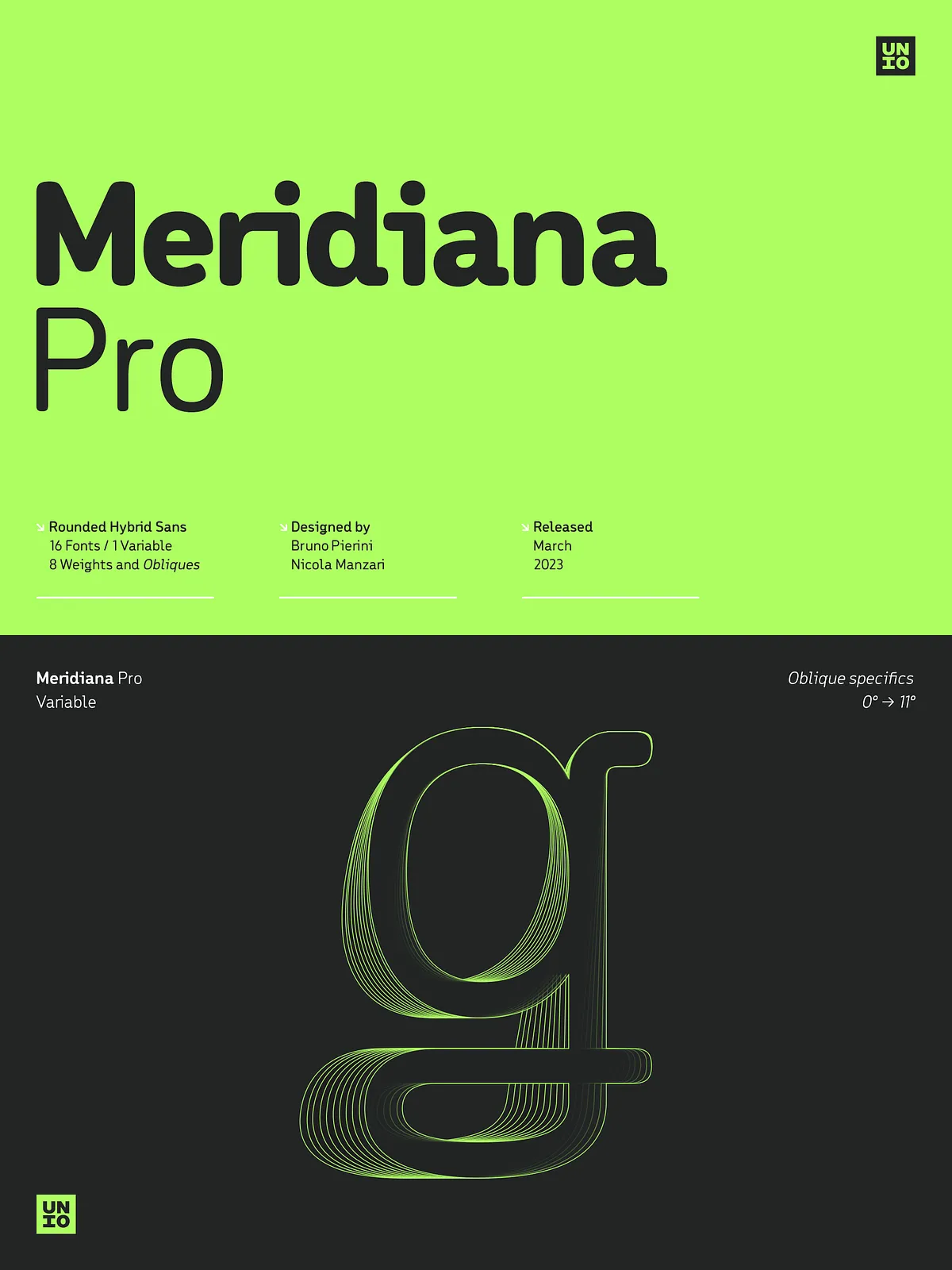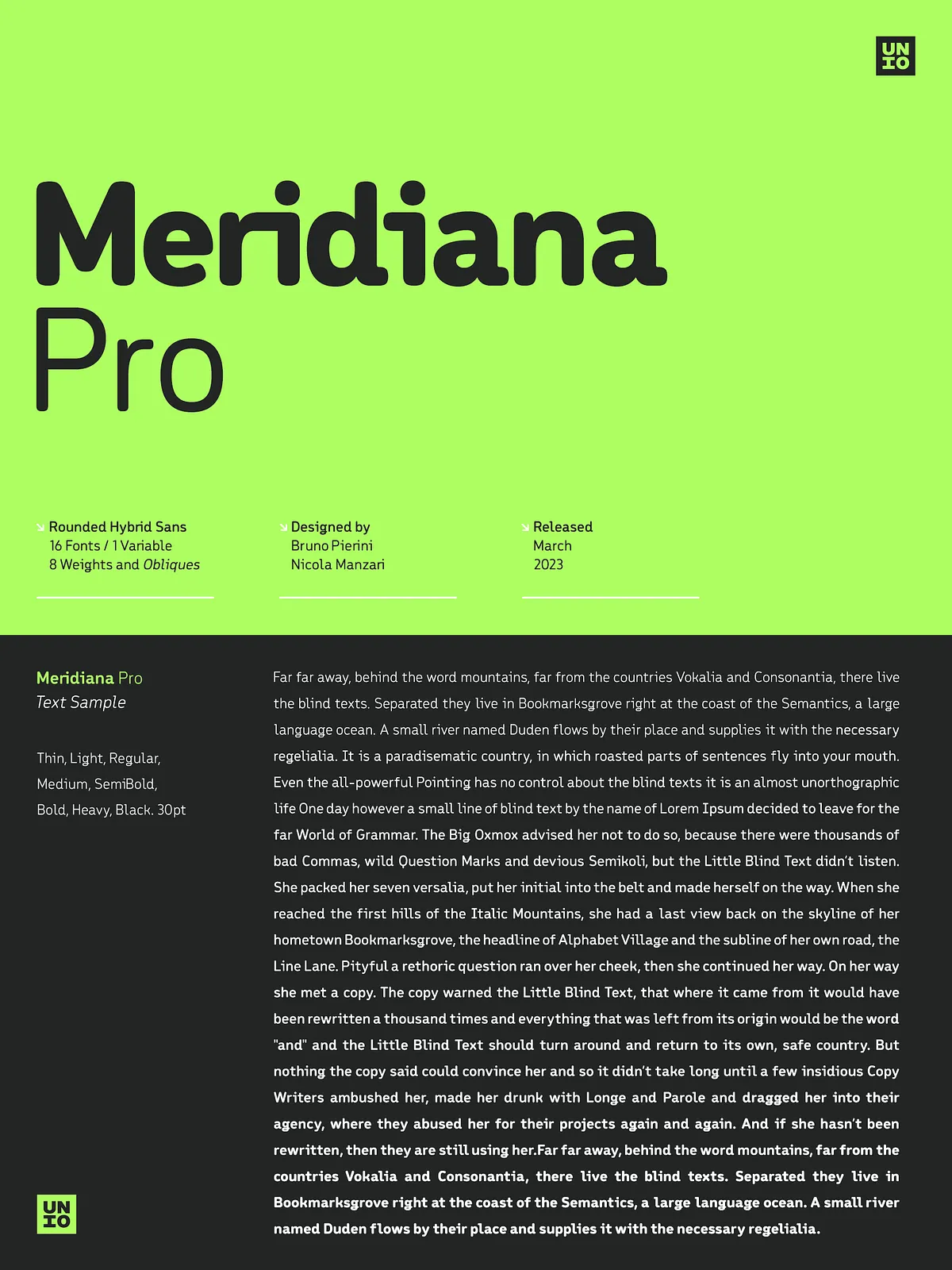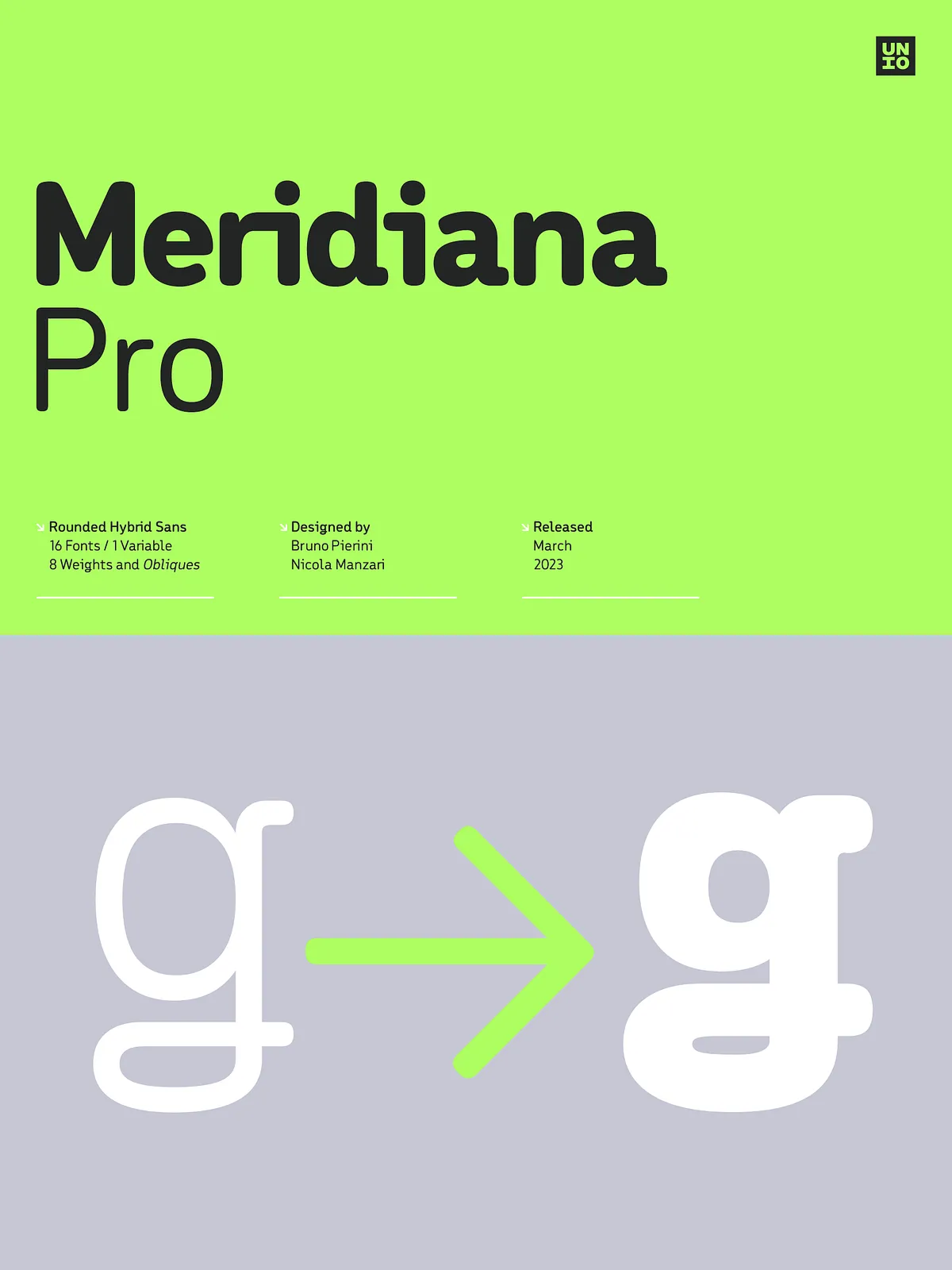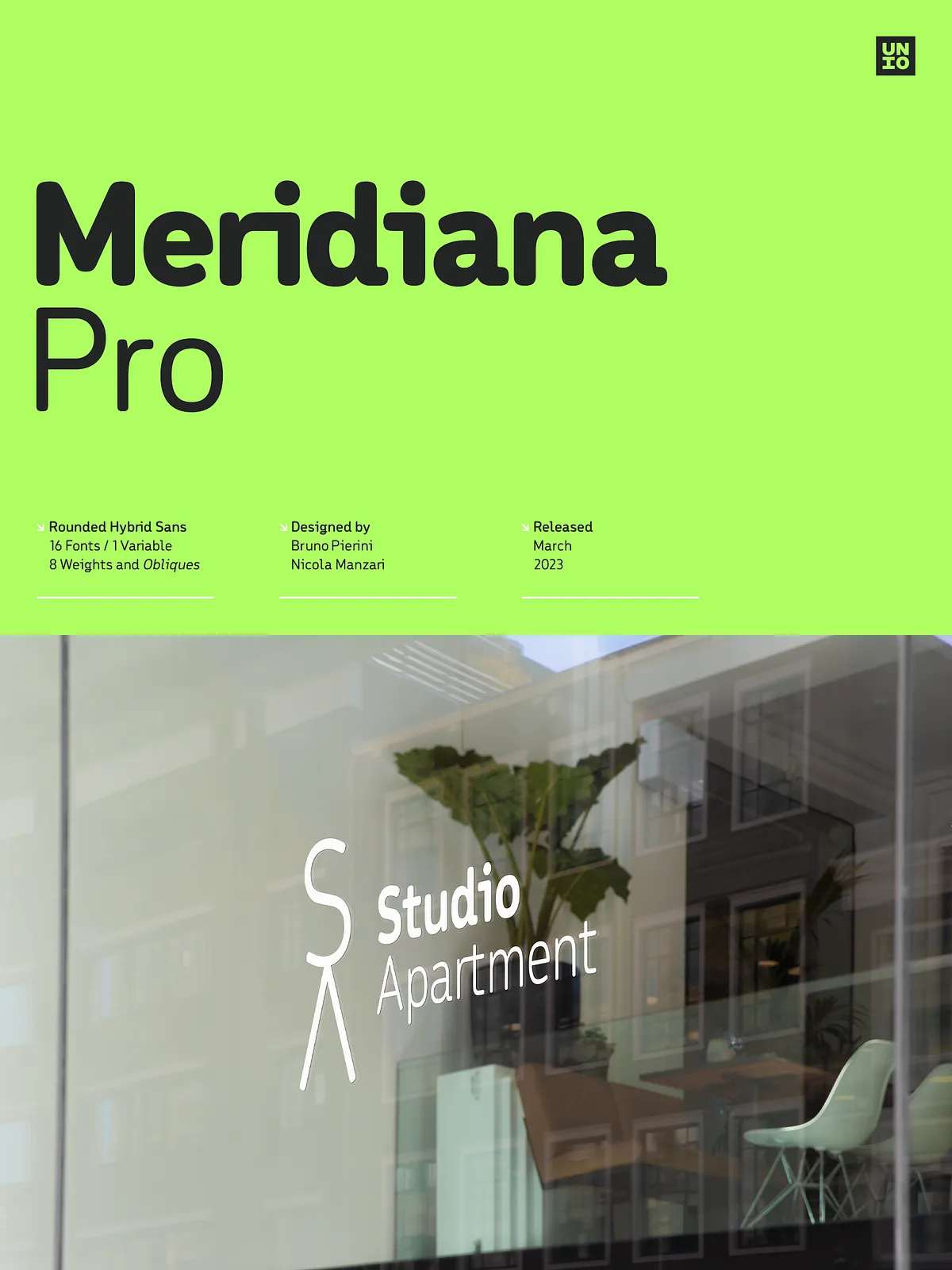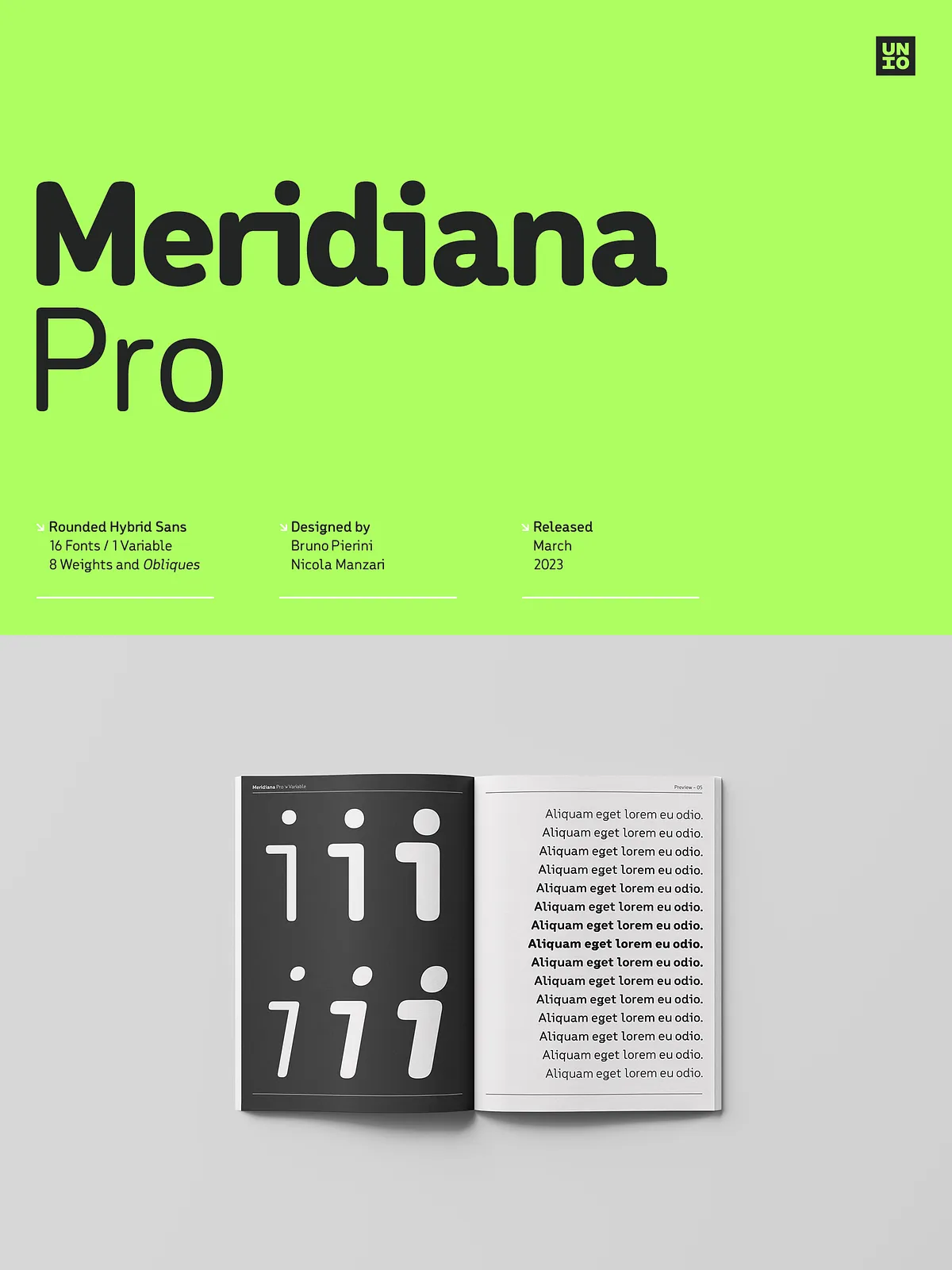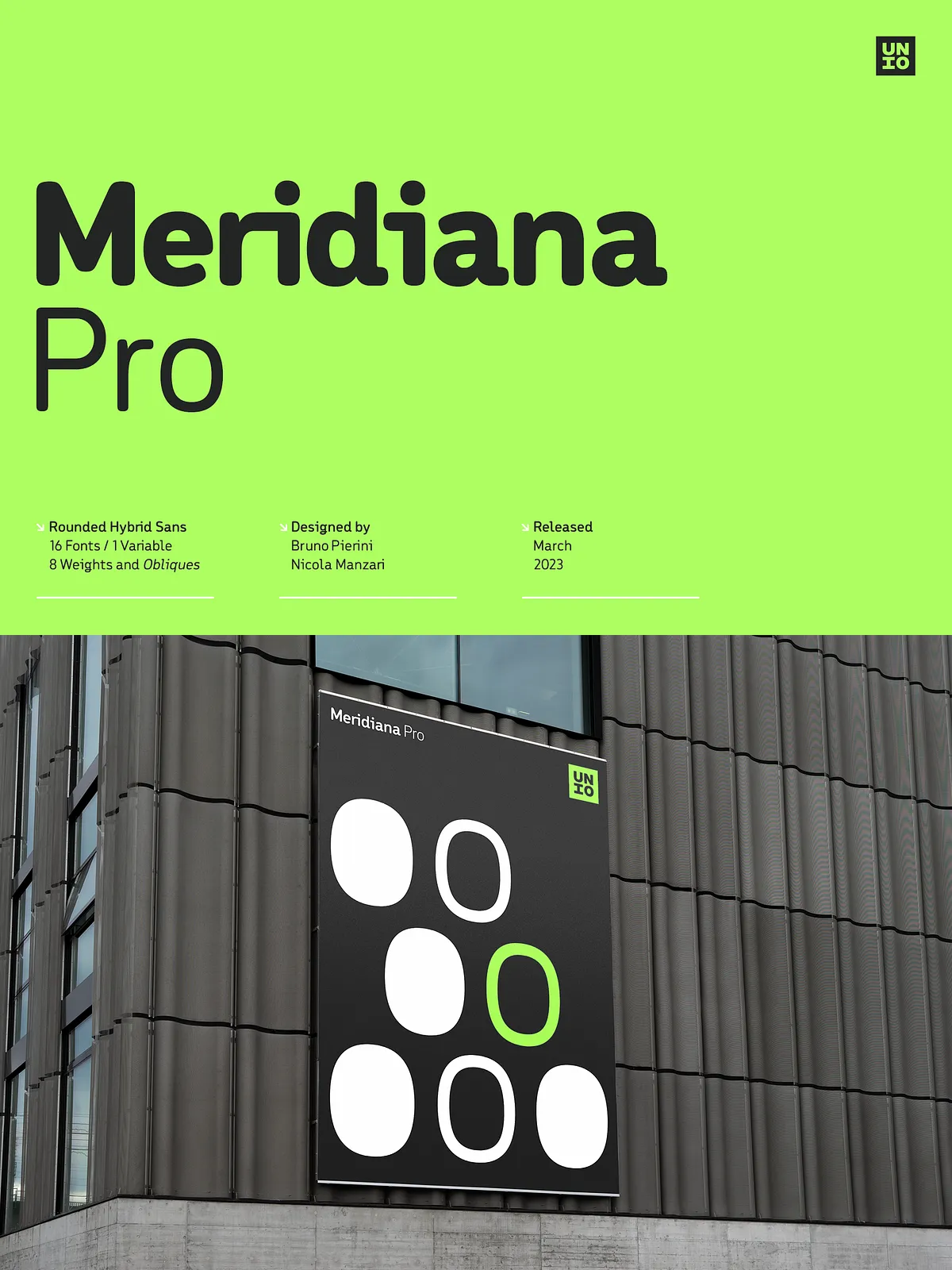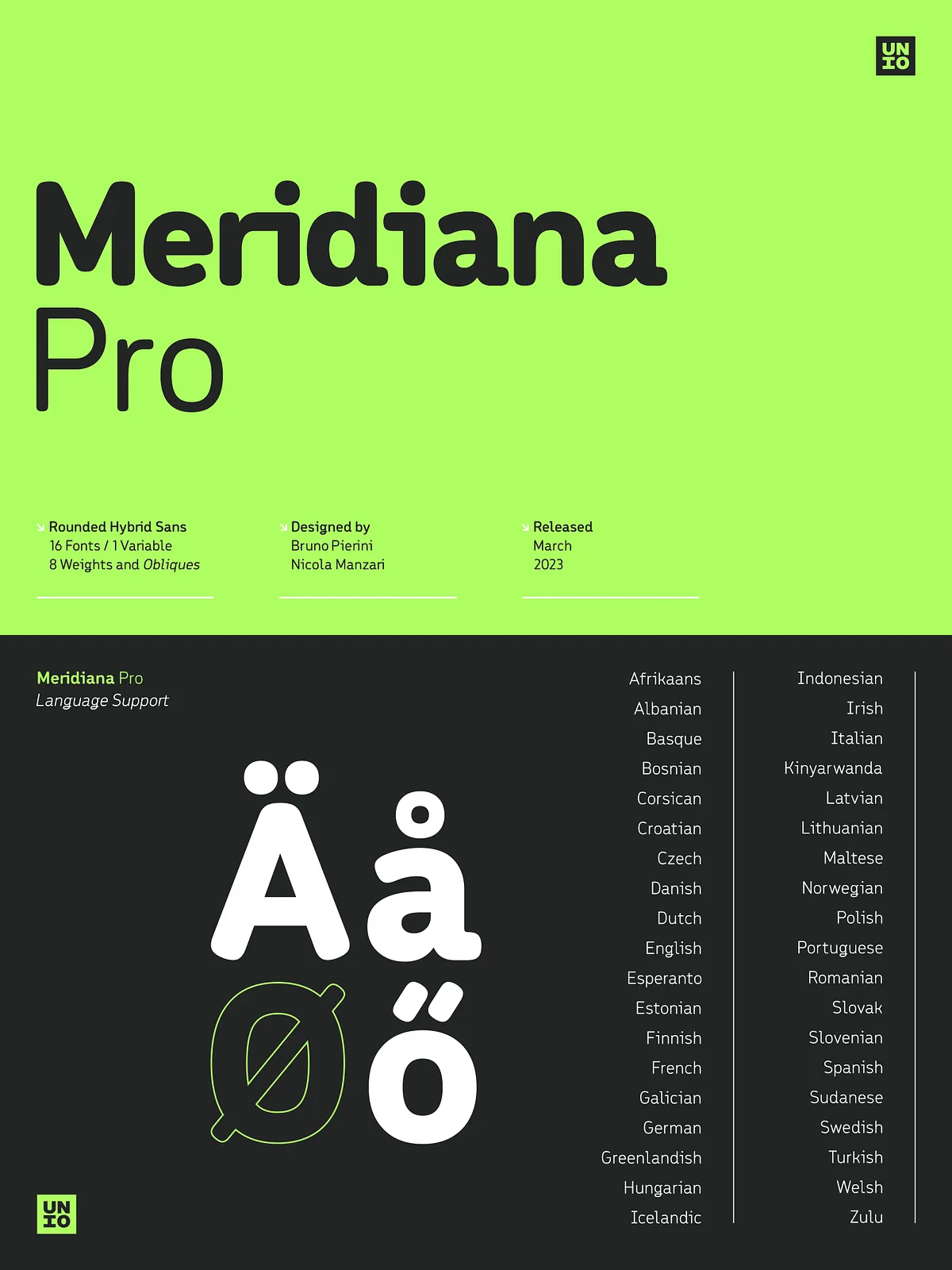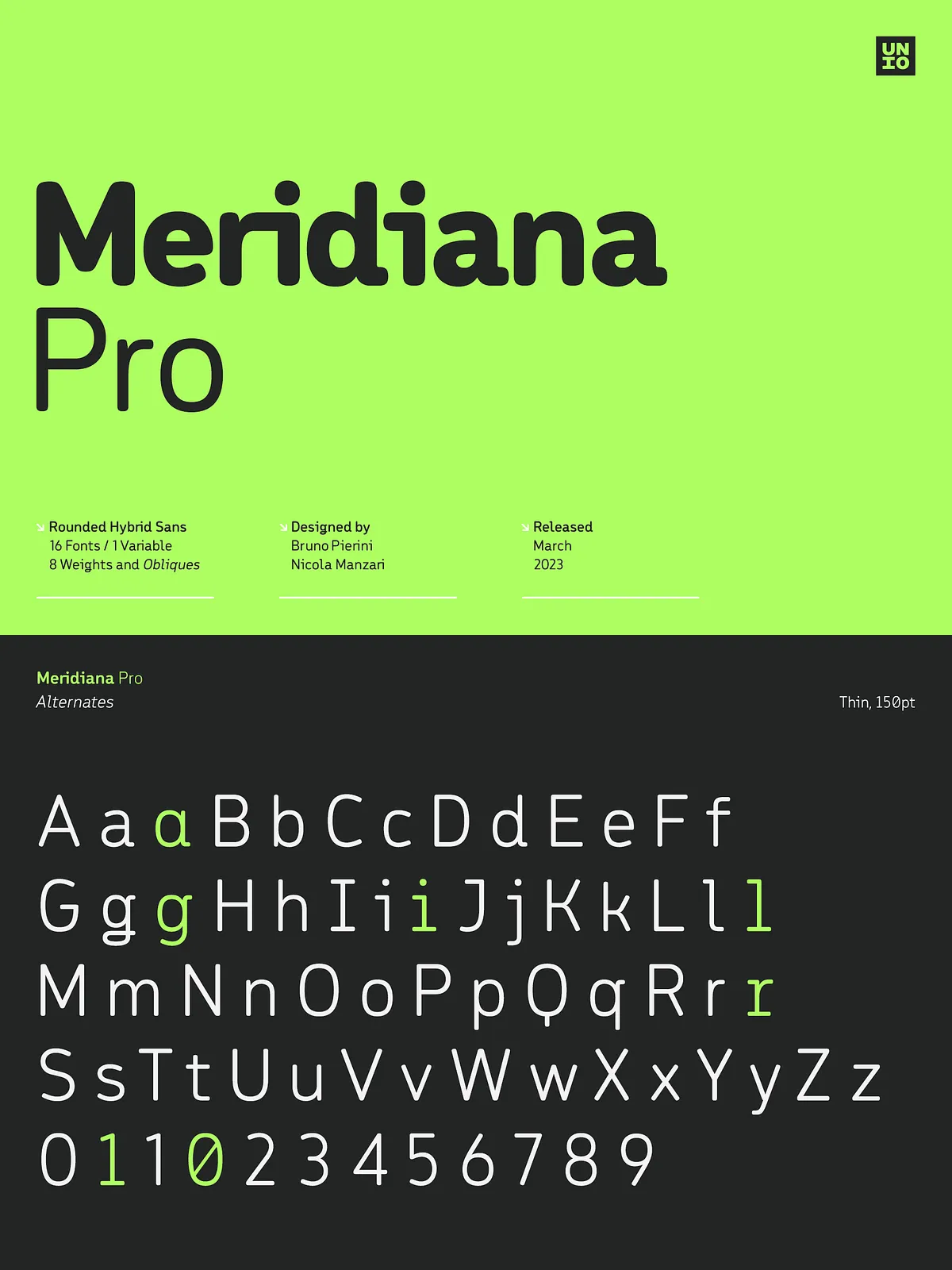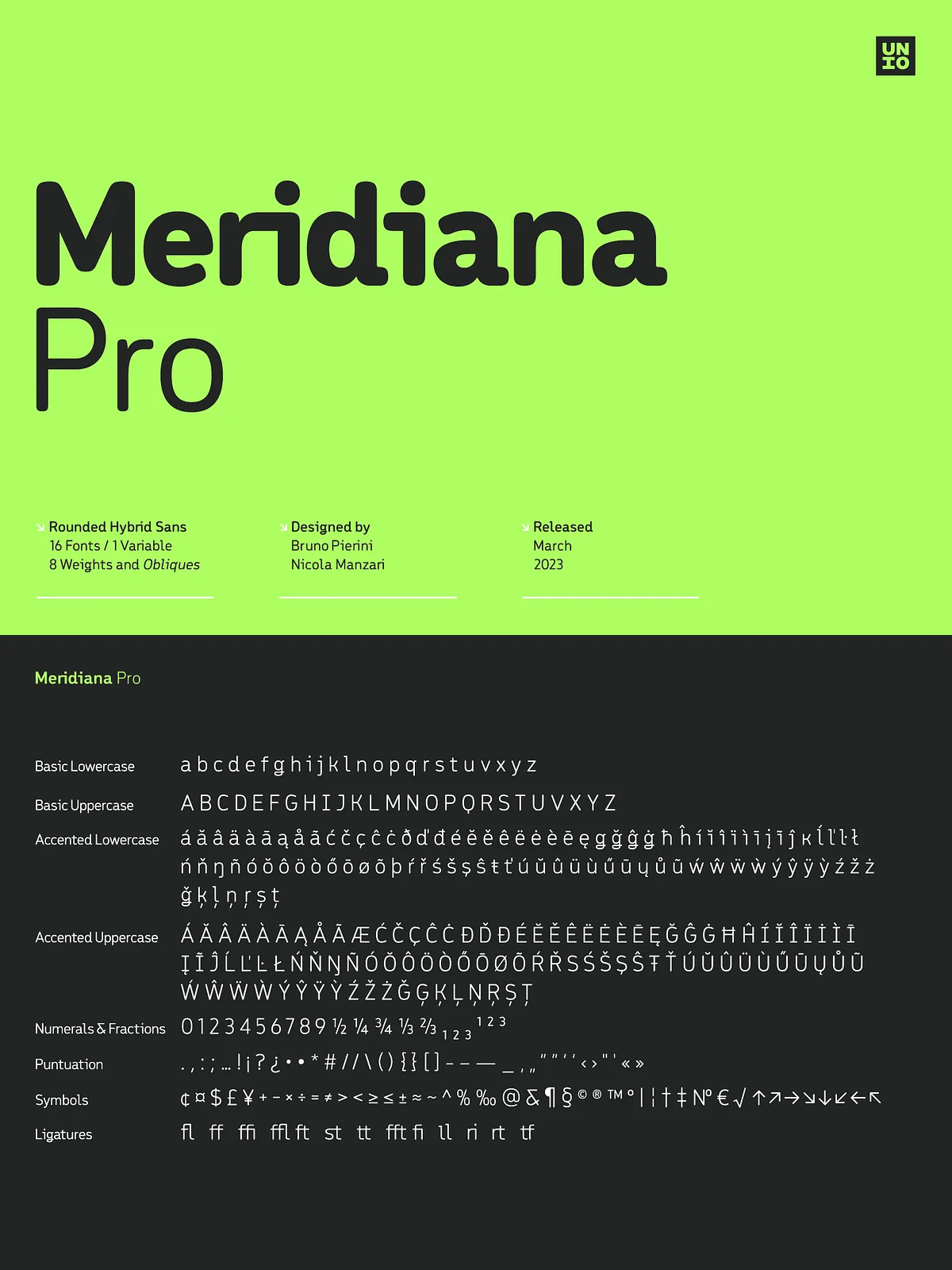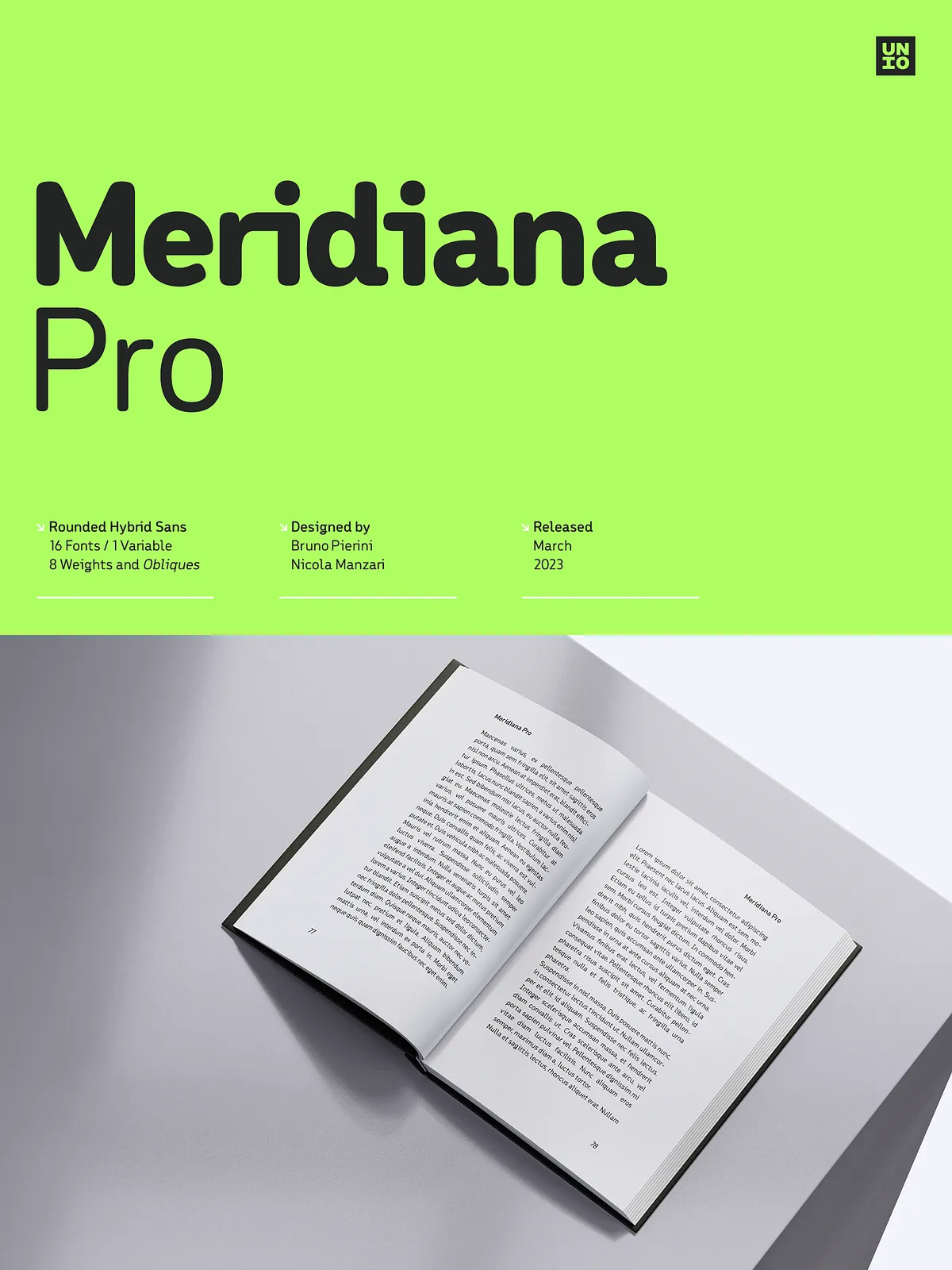
Meridiana Pro
Meridiana Pro isn’t just another font — it’s a revolution in typographic design. Born from the bold vision to merge the soft harmony of a rounded sans-serif with the mechanical rhythm of monospaced typography, it delivers a new standard in visual balance and functional flexibility. This isn’t a compromise between styles — it’s a seamless fusion engineered for modern design demands.
Every glyph in Meridiana Pro is crafted with meticulous attention to proportion, contour smoothness, and visual rhythm. The result? A type family that commands attention without overwhelming, that feels both organic and precisely calibrated. It’s the perfect partner for projects where elegance meets usability — from digital interfaces to editorial layouts and branding systems.
Powerful Variable Design: Two Axes, Infinite Possibilities
At its core, Meridiana Pro is a variable font built on two powerful axes: Weight and Italic. This dynamic system allows for real-time adjustments across the entire design space — from delicate Thin to commanding Heavy, and from upright Regular to subtle Oblique styles — all with a single file.
Whether you’re optimizing for web performance or fine-tuning a print layout, the variable nature of Meridiana Pro gives you instant control over tone, emphasis, and hierarchy. No more switching between multiple font files — the full typographic range is in your hands at the touch of a slider.
Complete Type Family: Static & Variable, 8 Weights with Obliques
Beyond the variable version, Meridiana Pro is also available as a traditional static OpenType family, providing precise control for legacy systems or teams that prefer discrete weights. The full static family includes:
• Thin — Ideal for delicate headings and subtle emphasis.
• Extra Light — Delicate and refined for modern editorial text.
• Light — Balanced and readable for body copy and UI elements.
• Regular — The default workhorse, reliable and versatile.
• Semibold — Adds weight to titles and section headers.
• Bold — Makes strong visual impact in logos and display use.
• Extra Bold — Dynamic for headlines, banners, and branding.
• Heavy — A commanding presence for dramatic design statements.
Each weight is paired with a matching oblique variant, offering a soft slant that enhances motion and flow — perfect for narrative layouts and digital motion typography.
Rich OpenType Features for Professional Design
Meridiana Pro is packed with industry-standard OpenType features to elevate your typography beyond the basics:
• Advanced Ligatures & Contextual Alternates
Eliminate awkward letterforms. The font automatically pairs characters to create natural, fluid transitions — especially effective in long text blocks and headings.
• Fraction and Stylistic Substitutions
Access typographically correct fractions (1/2, 3/4) and alternate glyphs that enhance visual consistency across designs.
• Superscript & Subscript Numerals
Perfect for footnotes, mathematical notation, scientific text, and editorial layouts.
• Multilingual Support
Comes fully equipped with comprehensive support for Central, Eastern, and Western European languages — including accented characters for French, German, Spanish, Italian, Polish, Czech, Croatian, and more — ensuring global usability without compromise.
Truly Versatile: From UI/UX to Print & Branding
Meridiana Pro was engineered for real-world application. Its blend of soft edges and structured spacing makes it ideal for a broad spectrum of projects:
• Digital Interfaces & Web Design
With its variable font support across modern browsers, Meridiana Pro delivers fast-loading, responsive typography that adapts to screen size and user preference.
• Editorial & Magazine Layouts
Perfect for article leaders, pull quotes, sidebars, and captions. The rhythm of its characters ensures comfortable reading while maintaining visual interest.
• Brand Identity & Logo Design
Leverage its clean, modern feel and balanced proportions to build distinctive brand voices. The variable axis allows brand guidelines to evolve smoothly across media.
• Presentations & Slideshows
Deliver professional, visually consistent content in Keynote, PowerPoint, and Google Slides with crisp clarity and dynamic hierarchy.
• Print & Packaging Design
Its high-resolution rendering ensures sharp, clean output in both offset and digital printing — ideal for stationery, product labels, and packaging.